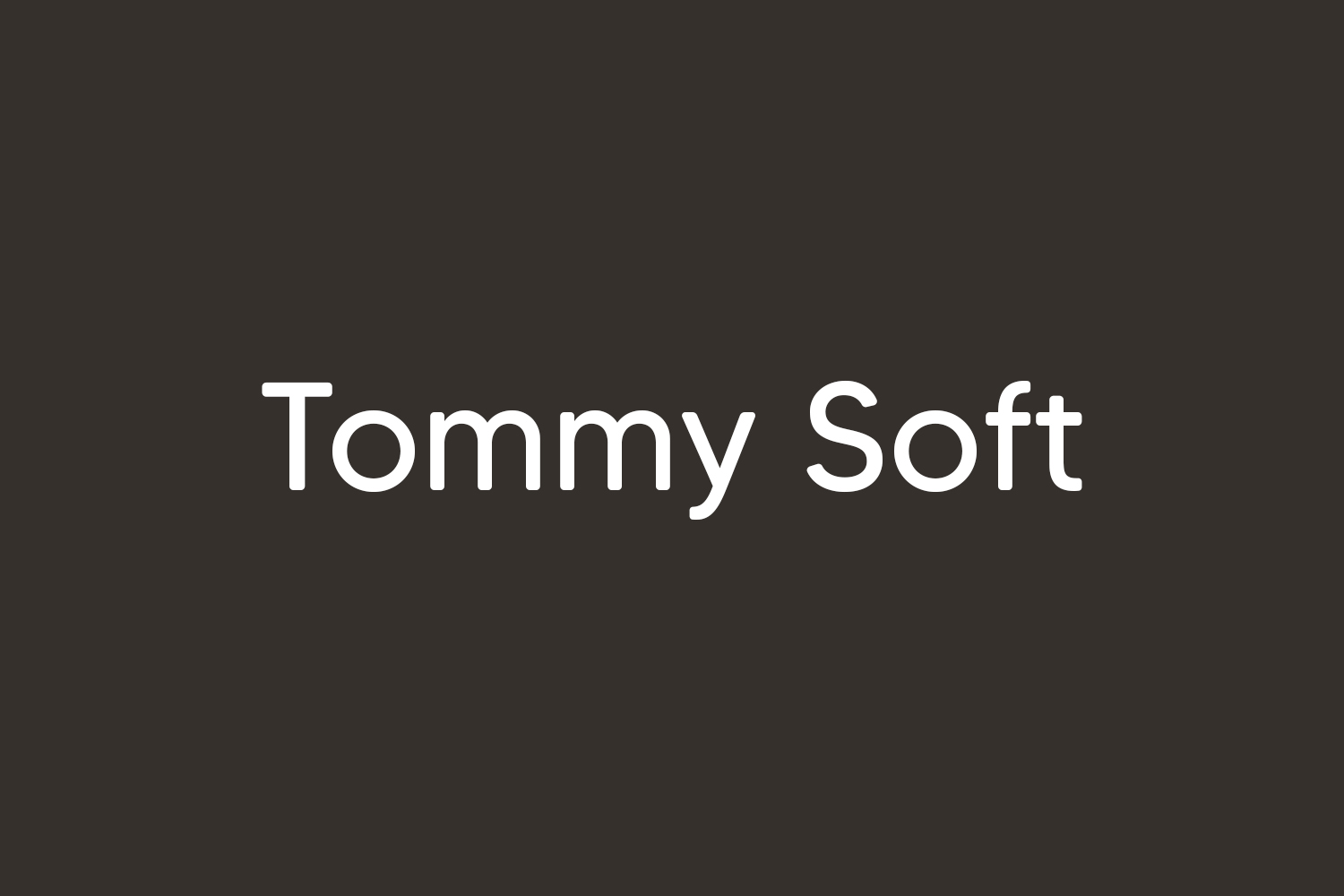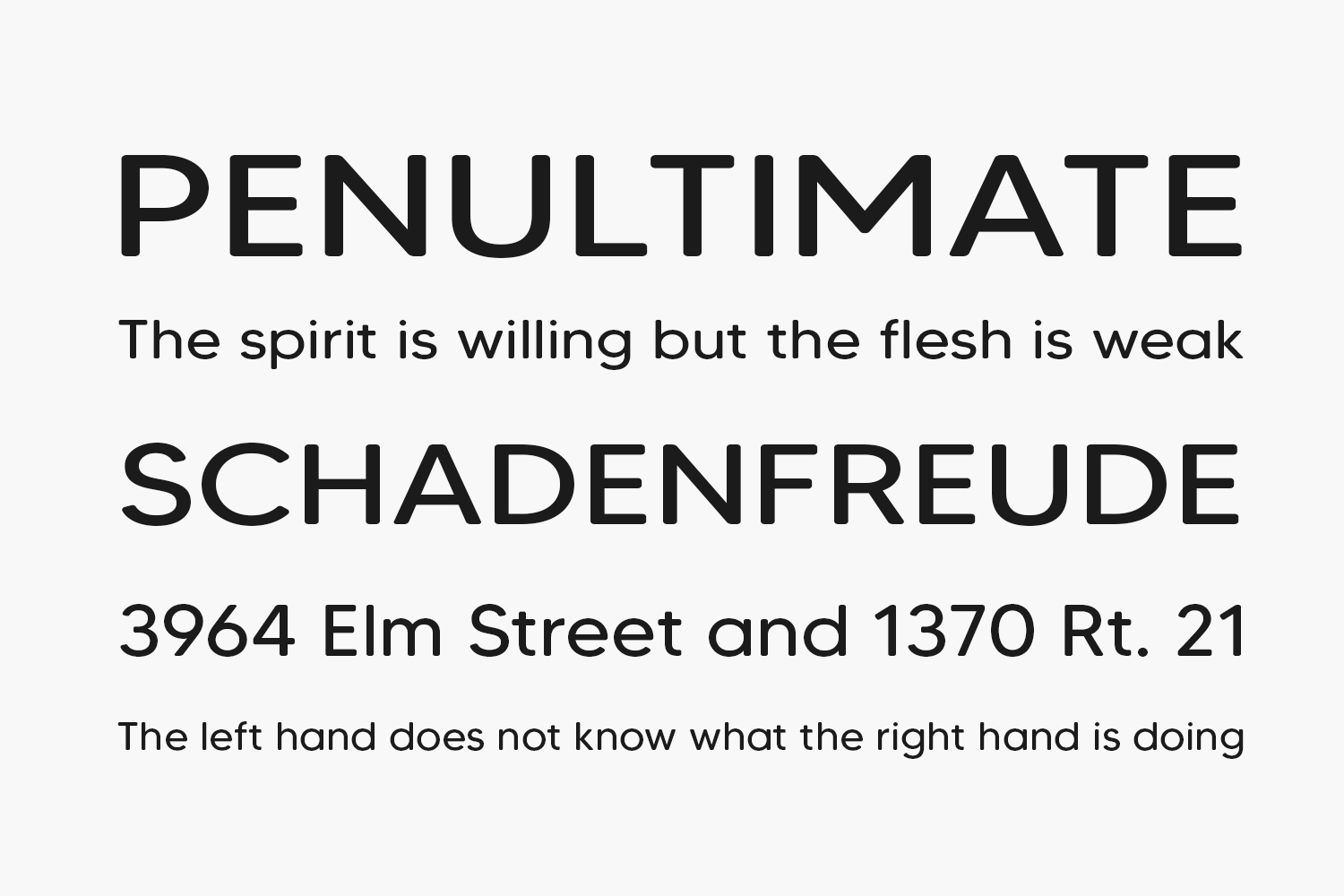
Tommy Soft is a soft and modern geometric typeface family from MadeType, featuring 7 solid weights (Thin to Black) each paired with a matching outline style. Its clean, rounded letterforms make it a great fit for fashion, editorial, branding, invitations, and UI design. The trial/demo version is free for personal use in OTF format; a commercial license can be purchased from the designer via Fontspring, Creative Market, or YouWorkForThem.
Why Choose Tommy Soft?
- Rich Font Family: Includes seven solid weights plus seven complementary outline styles—a total of 14 fonts.
- Friendly Geometry: Rounded corners bring warmth and approachability without sacrificing professionalism.
- Versatile: Perfect for logos, headers, branding, fashion layouts, wedding invites, and UI.
- Outline Correction: Outline styles add creative flexibility for layered typographic effects.
Where to Use Tommy Soft?
- Branding & Logos: Soft yet confident wordmarks for modern brands.
- Editorial Layouts: Stylish headers and pull-quotes in magazines and blogs.
- Invitations & Stationery: Warm and friendly typography for events and celebrations.
- UI & Web Interfaces: Clean sans-serif for menus, buttons, and headlines.
- Marketing & Social Media: Bold text overlays and promo graphics.
Design Tips with Tommy Soft
Use solid weights for body text or heavy headers, and outline styles to add layered visual interest. Pair it with complementary sans-serifs like Montserrat or Open Sans. Its rounded geometry works beautifully with pastel palettes or soft minimal layouts. Use in large sizes (≥24pt) to fully showcase its friendly personality.